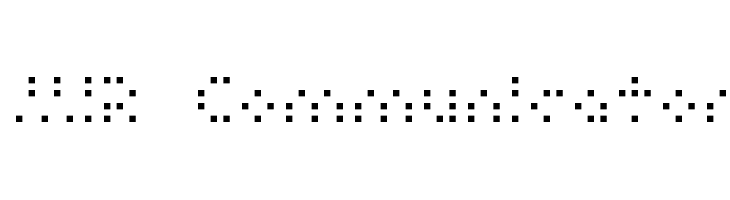
A bold, stencil-style font with geometric shapes and high contrast.
A pixelated, retro-style font with a digital, tech-inspired aesthetic.
A bold, geometric font with sharp angles and a modern, industrial feel.
A bold, shield-encased font ideal for sports-themed designs.
A bold, vintage-style font with tall, narrow characters and sharp serifs.
A bold, italic font with an industrial, futuristic design featuring segmented strokes.
A dot matrix style font with a modern, digital aesthetic.
A bold, italic font with a strong, dynamic presence.
A flowing cursive font with elegant, connected letters and moderate stroke contrast.
An elegant, flowing script font with intricate swirls and artistic flourishes.